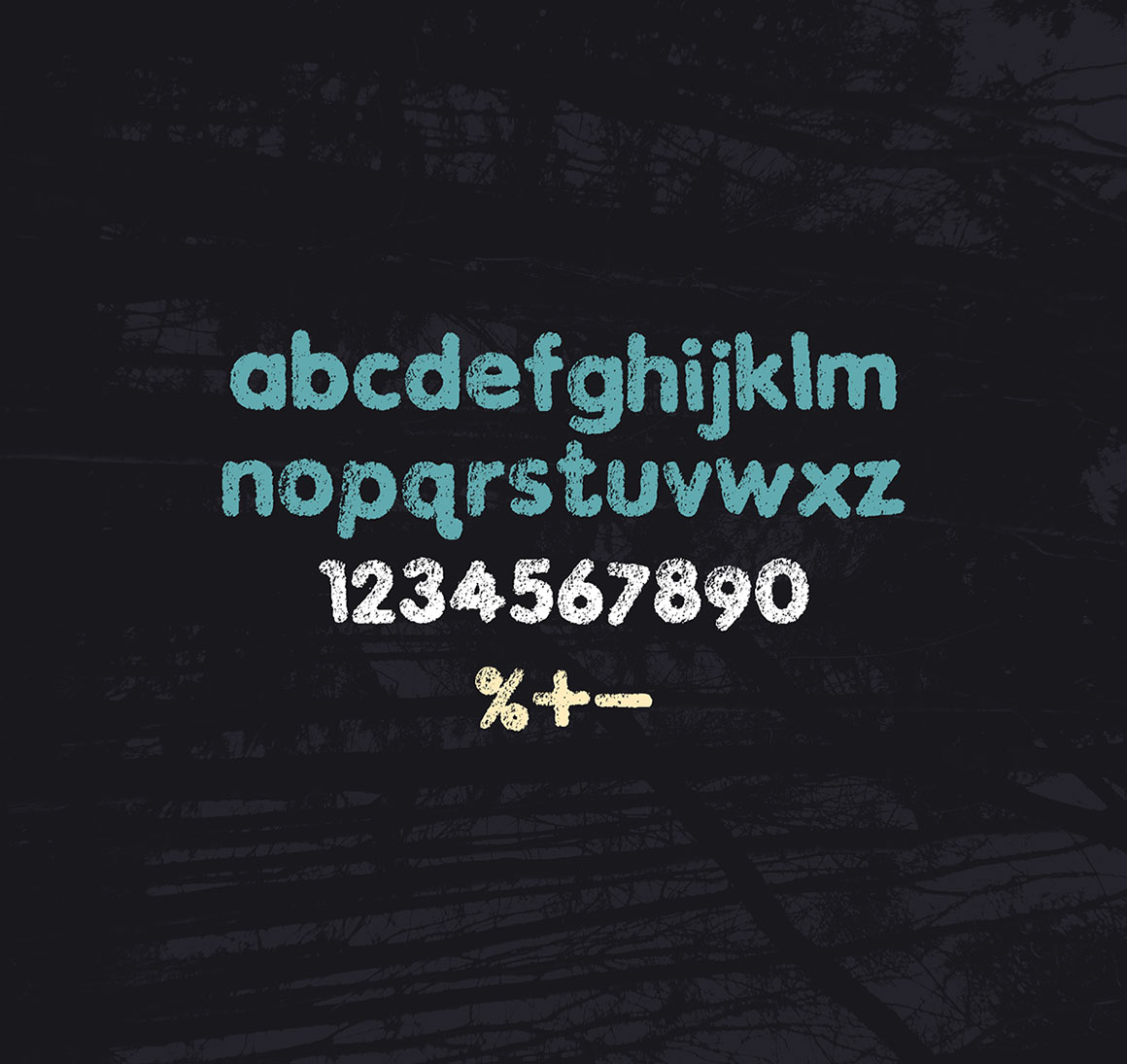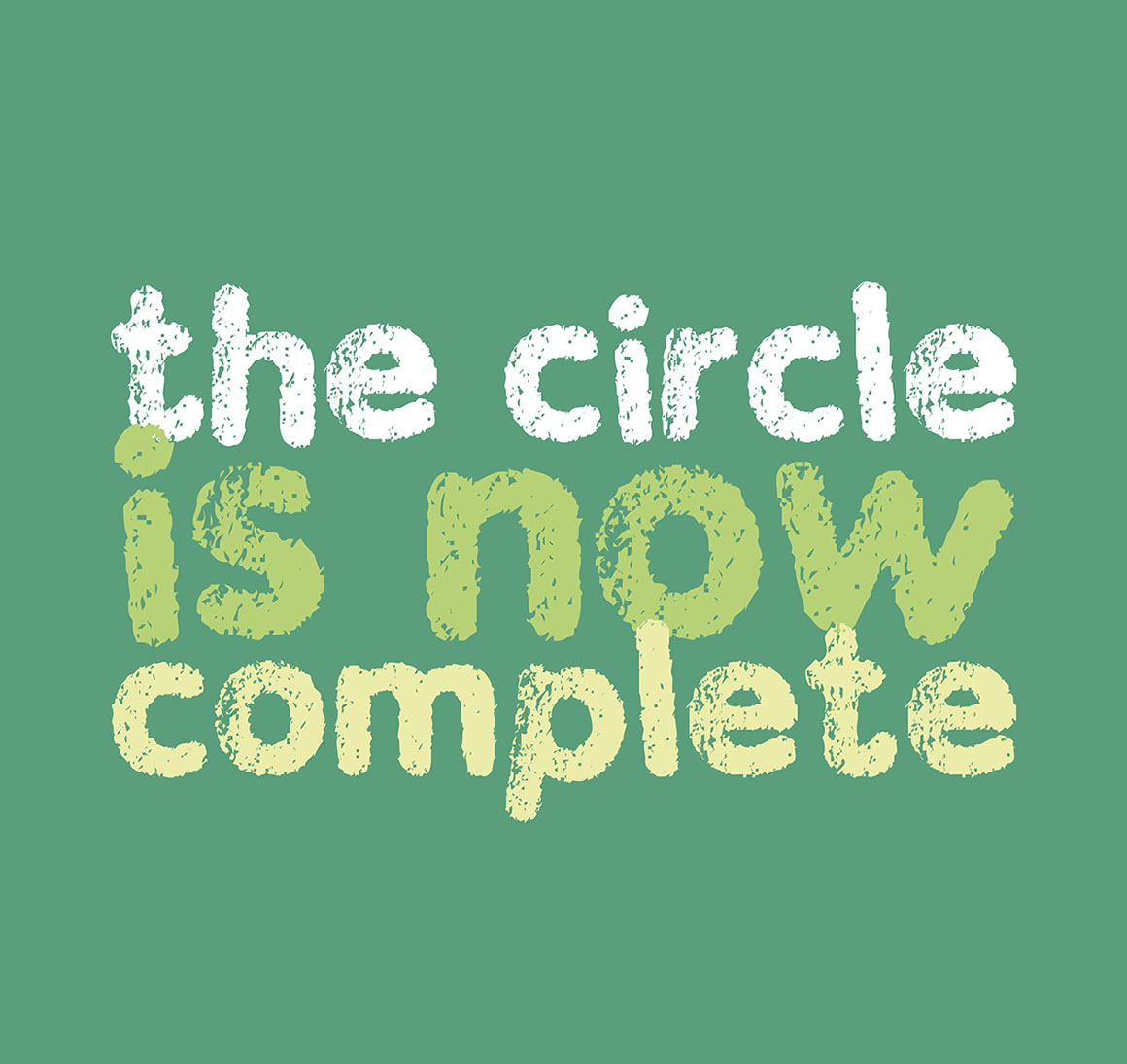
JakesFuzzyFelt – Free Grunge Font
This cool grunge style custom font is from Carl Seal. With unique grunge style and great for your new creative projects. Download and enjoy 😉